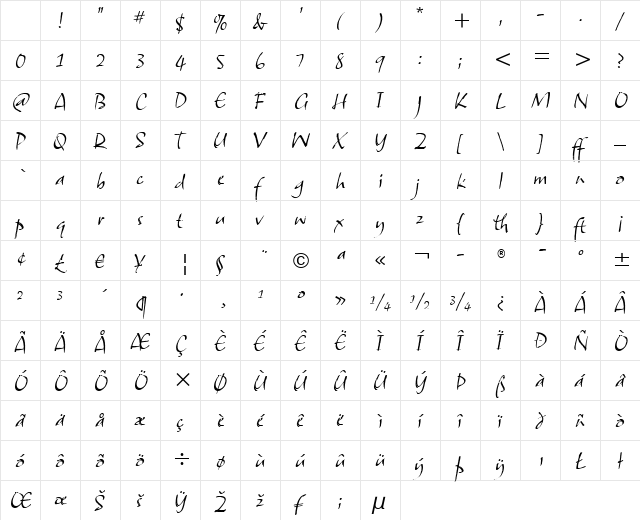
Complete Samuel ITC Light Italic glyph index. Displaying only characters natively supported by Samuel ITC Light Italic font.
Samuel ITC is a composed and adaptable typeface that performs quietly and consistently across a wide range of design contexts. The slanted form adds forward momentum and visual energy. Its slender proportions lend an understated elegance to any composition.
Pro Tip: Use Samuel ITC for emphasis, pull quotes, and subheadings where its slanted energy can add rhythm to the layout.